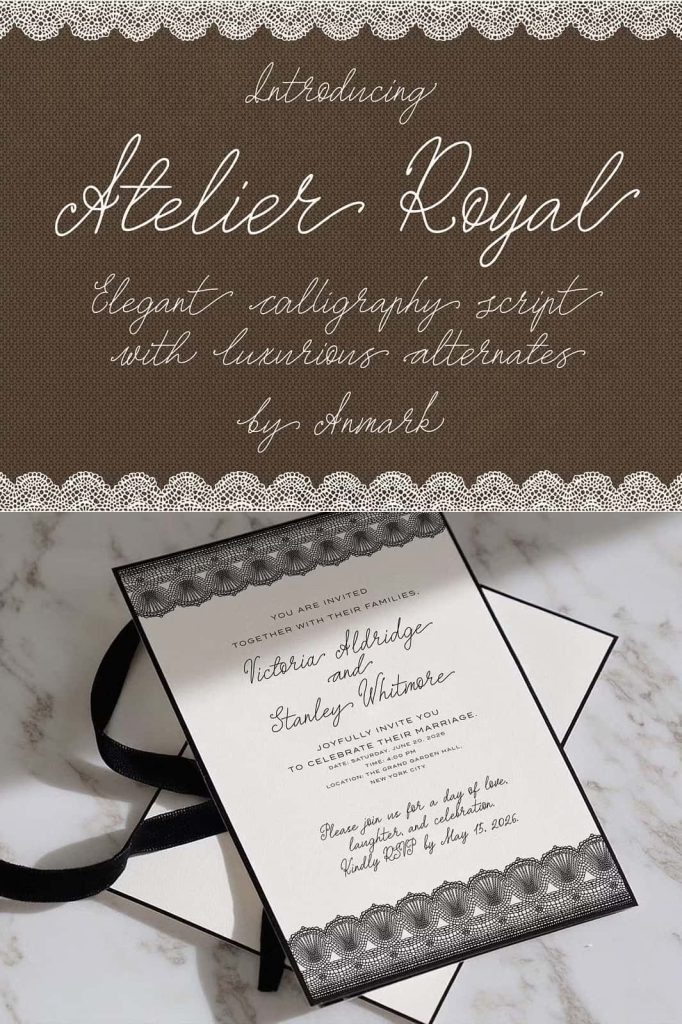
Atelier Royal is a refined calligraphy font created for weddings, invitations, branding, and elegant designs. Its flowing lines and swash-style letters give every word a sophisticated, handcrafted feel.